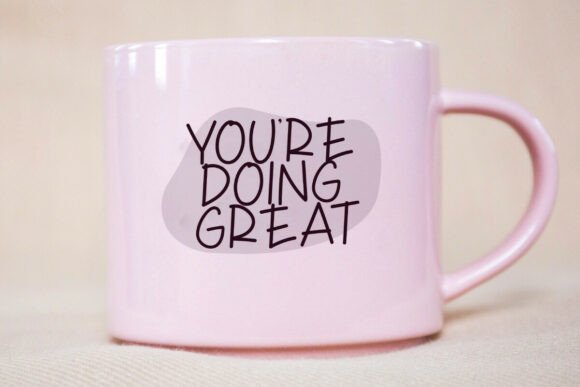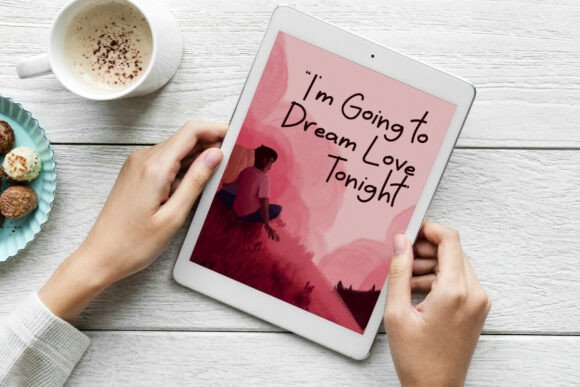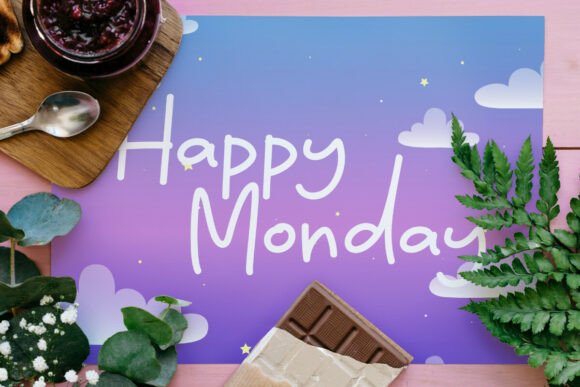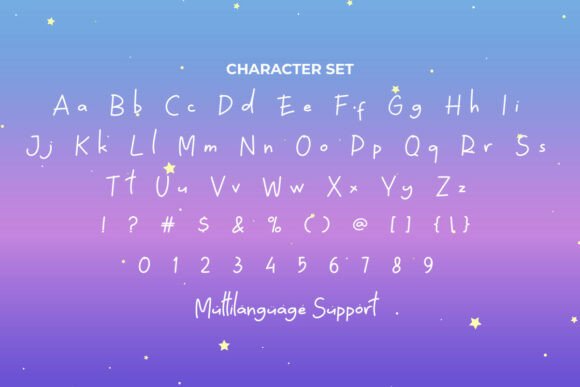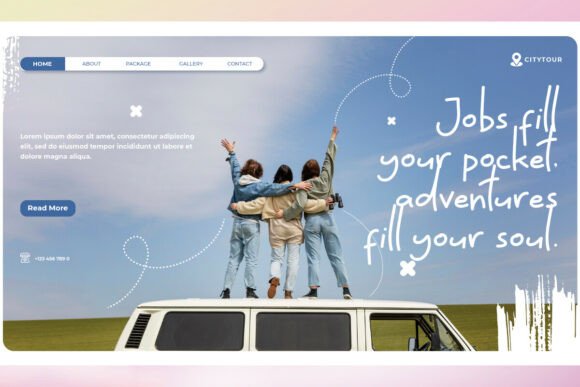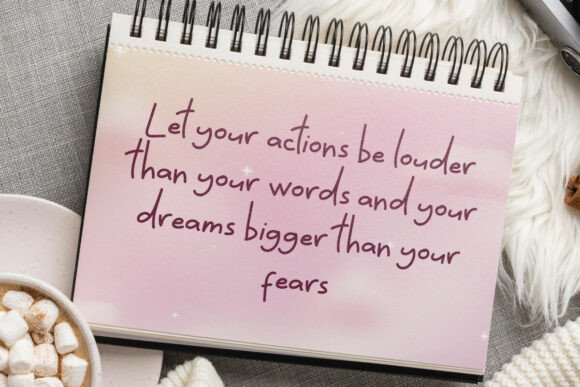
Introducing Excited Dreams Font: The Sweet and Friendly Handwritten Font for Your Creative Projects
Are you tired of using the same old fonts for your designs? Do you want to add a touch of personality and whimsy to your projects? Look no further than Excited Dreams Font, a sweet and friendly handwritten font that’s perfect for a wide range of creative endeavors. With its natural and unique style, Excited Dreams is sure to bring a fresh and exciting feel to your designs.
The Characteristics of Excited Dreams Font
Excited Dreams Font is a handwritten font that’s characterized by its sweet and friendly tone. The font features natural and fluid strokes, giving it a unique and organic feel that’s perfect for designs that require a personal touch. The font is highly legible, making it suitable for use in a variety of contexts, from headings and titles to body text and captions.
One of the standout features of Excited Dreams Font is its versatility. The font is incredibly flexible and can be used in a wide range of designs, from playful and whimsical to elegant and sophisticated. Whether you’re working on a project for a client or creating something for your own personal brand, Excited Dreams Font is sure to help you achieve your design goals.
The Benefits of Using Excited Dreams Font
So why choose Excited Dreams Font for your design projects? Here are just a few benefits of using this amazing font:
- Unique and eye-catching: Excited Dreams Font is a one-of-a-kind font that’s sure to grab attention and make your designs stand out from the crowd.
- Highly versatile: The font can be used in a wide range of designs, from digital projects to print materials, and can be easily paired with other fonts to create a unique look.
- Easy to read: Excited Dreams Font is highly legible, making it perfect for use in body text and other applications where readability is key.
- Perfect for creative projects: Whether you’re working on a design project for a client or creating something for your own personal brand, Excited Dreams Font is the perfect choice for adding a touch of personality and whimsy to your designs.
How to Use Excited Dreams Font in Your Designs
Using Excited Dreams Font in your designs is easy. Here are a few tips to get you started:
- Pair it with other fonts: Excited Dreams Font pairs well with a variety of other fonts, from bold and sans-serif to elegant and script. Experiment with different font combinations to find the perfect look for your design.
- Use it for headings and titles: Excited Dreams Font is perfect for use in headings and titles, where its unique and eye-catching style can really shine.
- Add it to your digital projects: Excited Dreams Font can be used in a wide range of digital projects, from social media graphics to website headers and more.
- Experiment with different colors and textures: Excited Dreams Font looks great in a variety of colors and textures. Don’t be afraid to experiment and find the perfect look for your design.
Excited Dreams Font is a sweet and friendly handwritten font that’s perfect for designers and crafters looking to add a touch of personality and whimsy to their projects. With its natural and unique style, Excited Dreams is incredibly versatile and can be used in a wide range of designs. Whether you’re working on a project for a client or creating something for your own personal brand, Excited Dreams Font is sure to help you achieve your design goals. So why wait? Download Excited Dreams Font today and start creating amazing designs that are sure to impress!
The only limit is your imagination, so don’t be afraid to get creative and experiment with Excited Dreams Font. With its unique and eye-catching style, you’re sure to create designs that are truly one-of-a-kind.